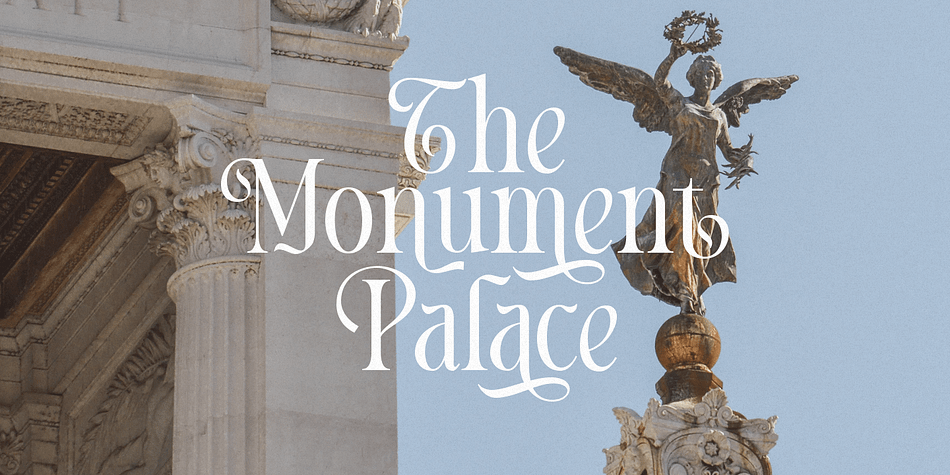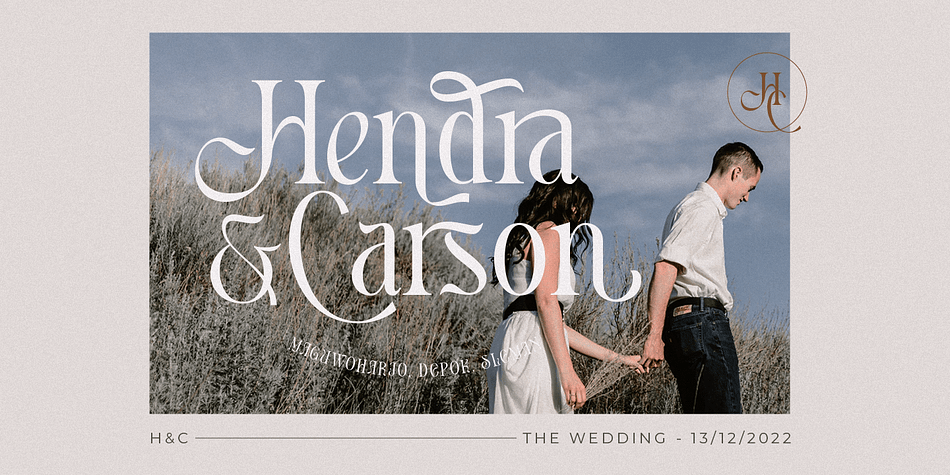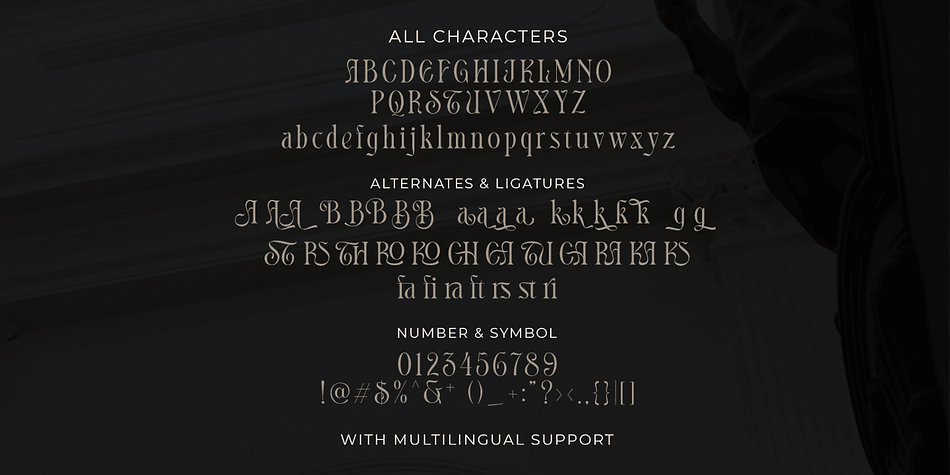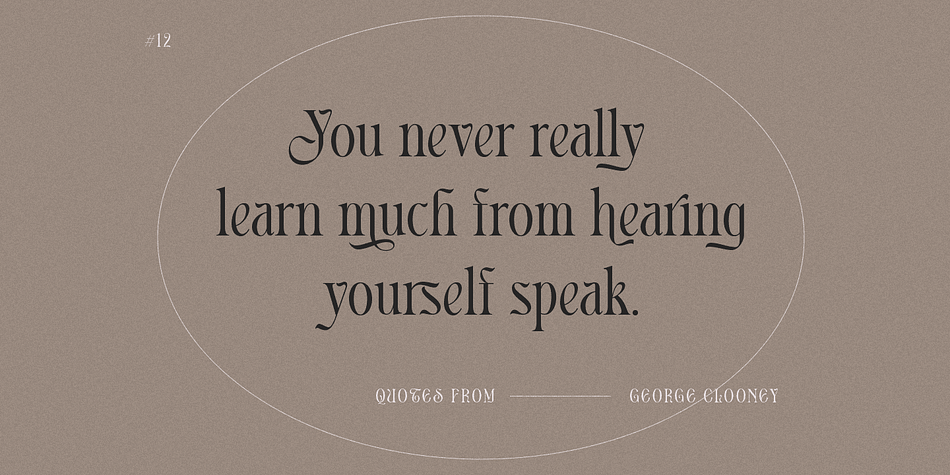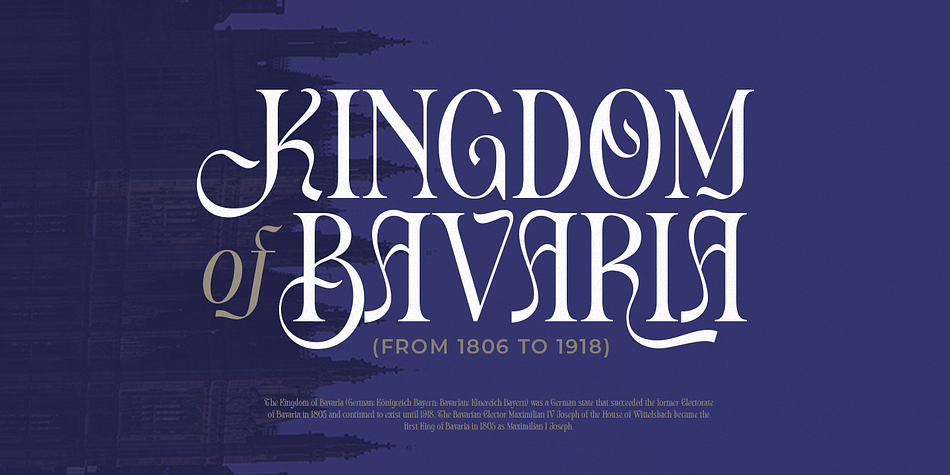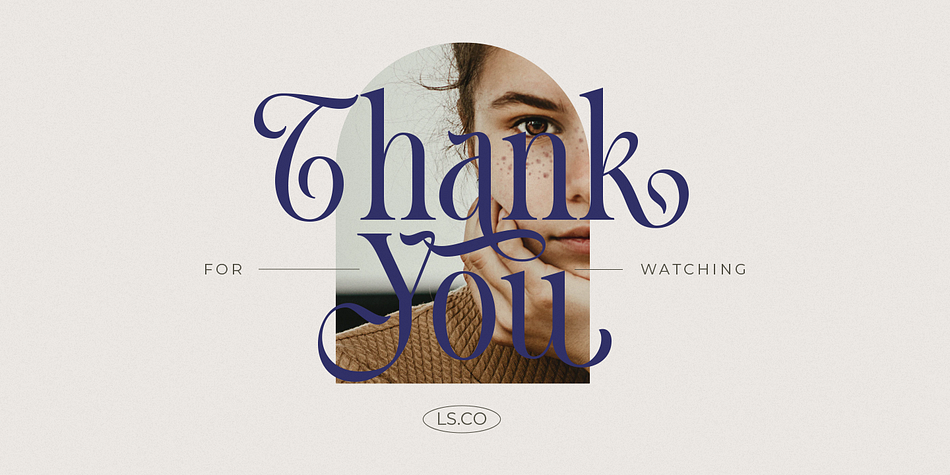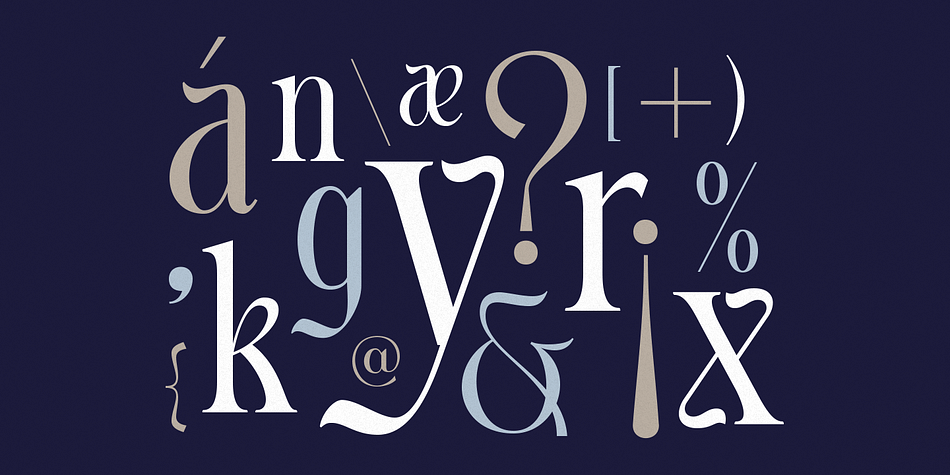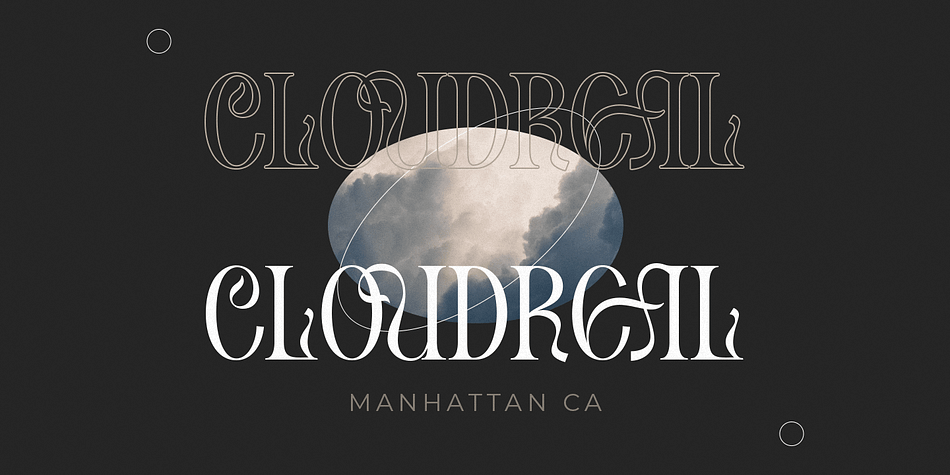
Designed by Hendry Juanda, APPEARS is a display serif font family published by Letterhend Studio.
Introducing, Appears, a Display Serif Font. This font has neat and sleek letterform, make it looks great to be used for modern and minimalistic design theme. The stylistic alternates and ligatures make this font event more unique and stands from the crowd. This font perfectly made to be applied especially in logo, and the other various formal forms such as invitations, labels, logos, magazines, books, greeting / wedding cards, packaging, fashion, make up, stationery, novels, labels or any type of advertising purpose.
- alternates & ligatures